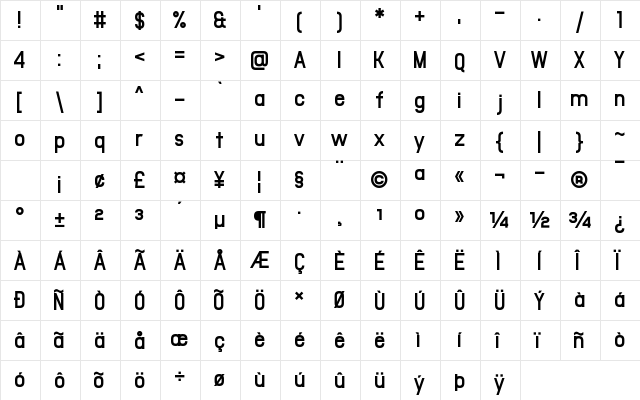
Office Square Regular
Design Context for Office Square Typeface
Office Square takes a measured approach to typography — its balanced proportions and neutral character make it a reliable workhorse for both digital and print work.
Pro Tip: Pair Office Square with a font of contrasting weight or personality to build a more expressive typographic hierarchy.